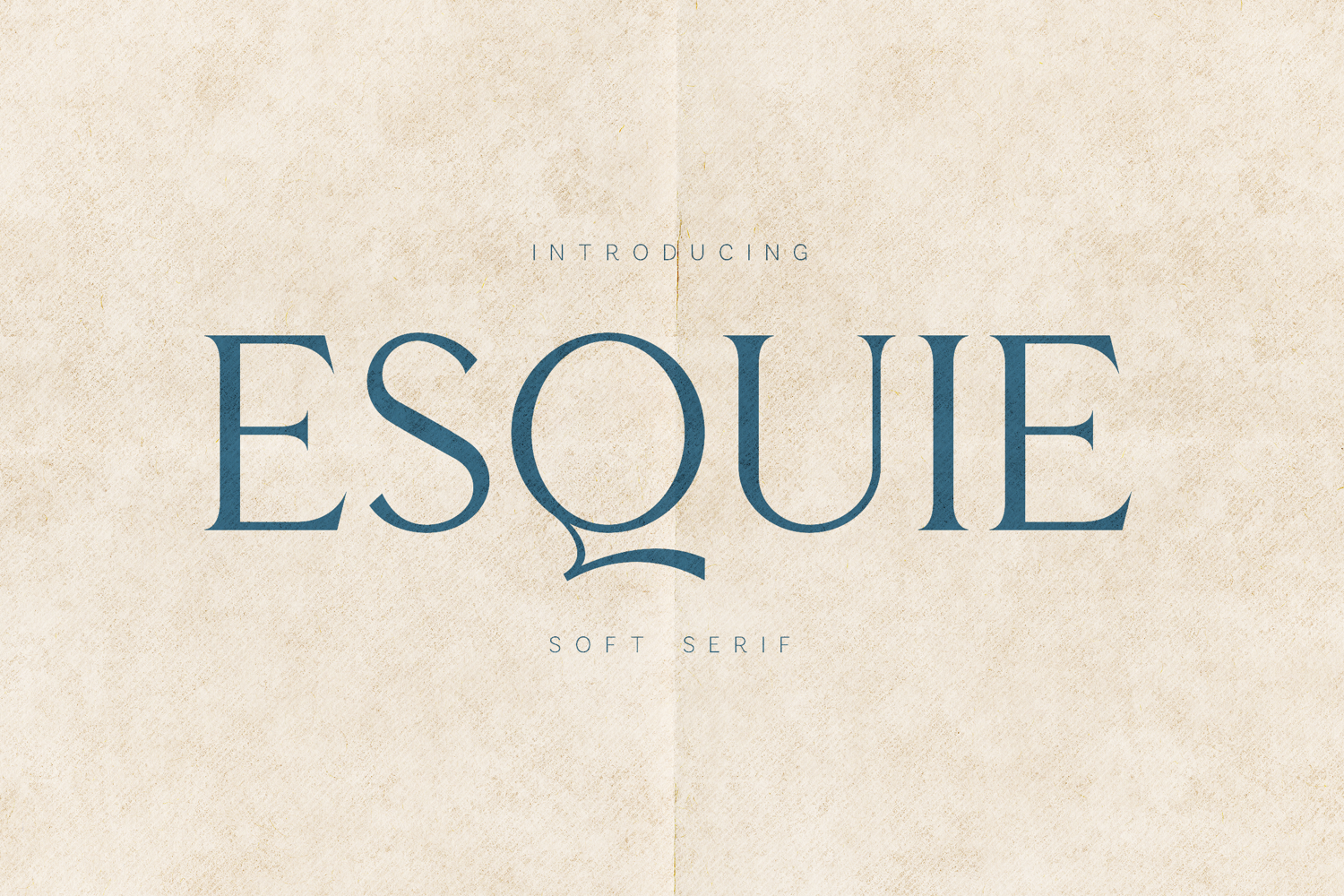
Esque Soft Elegant Serif Font
Esque is a soft elegant serif font designed for calm, refined, and timeless typography. With gentle curves, balanced proportions, and subtle contrast, Esque delivers a quiet sophistication that feels both classic and contemporary.
The font is crafted to feel warm and human, making it ideal for editorial layouts, branding, book covers, packaging, invitations, and cultural or lifestyle projects. Its soft serif details create a graceful rhythm that works beautifully in headlines, short text, and expressive compositions.
Esque balances elegance with readability, allowing it to adapt effortlessly to both print and digital use. The overall character is thoughtful, poetic, and restrained—perfect for designers who value subtlety over excess.
Esque includes a complete character set with extensive multilingual support, numerals, punctuation, and symbols, making it reliable for professional design systems across languages.